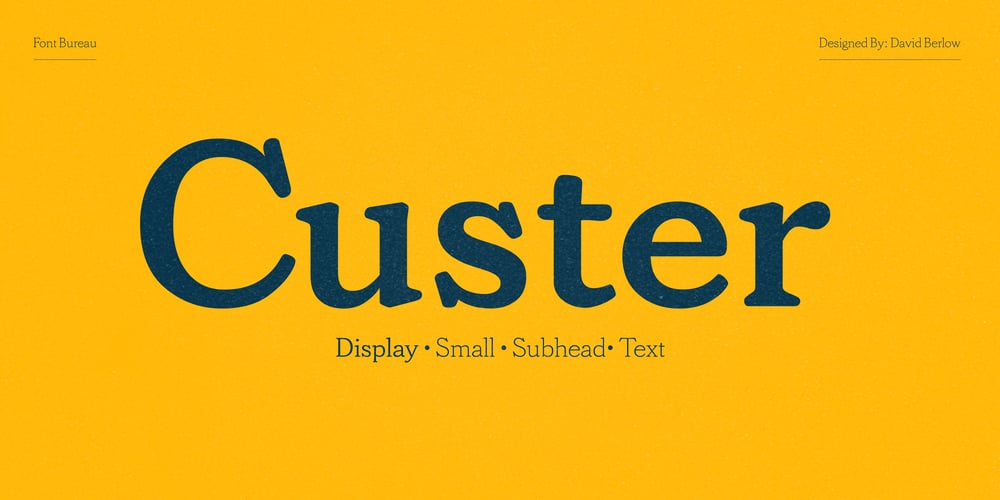
Custer Font Family was designed by David Berlow and published by Font Bureau. Custer contains 28 styles and family package options. In 2009, a book from 1897 in the library of the University of Wisconsin caught David Berlow’s attention. It was set in a clear text face—a predecessor of Bookman—cast by the Western Type Foundry who called it Custer. Upon noting how well the typeface worked in sizes of 6 and 7 points, Berlow developed it into a member of the Reading Edge series specifically designed for small text on screen. Custer RE was a broad and approachable typeface drawn large on the body with a tall x-height to maximize its apparent size when set very small. This was the beginning of the newly expanded series; in 2020, Berlow added new optical sizes and weights, growing the original design’s versatility up to headline sizes.